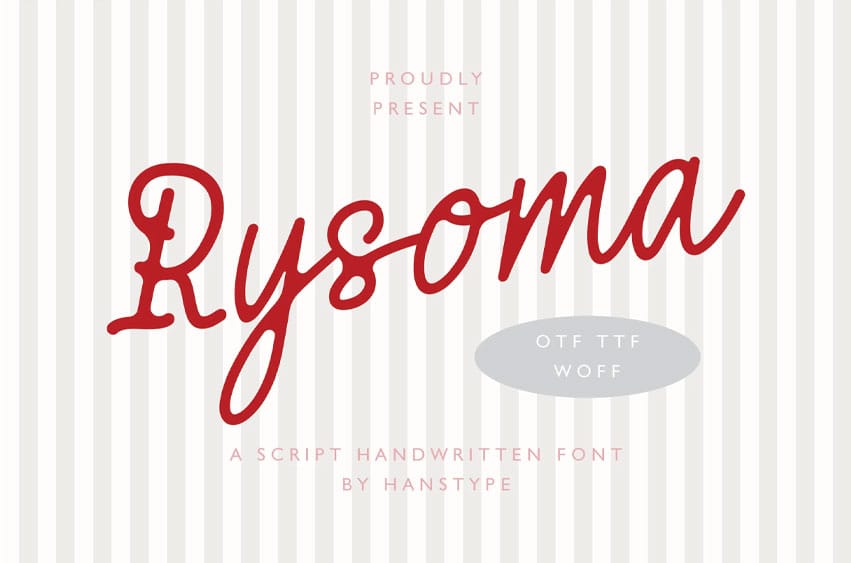
Rysoma Font is a playful, expressive font that captures the essence of joy and curiosity. With its bold, rounded letterforms and dynamic curves, it evokes a sense of fun and excitement, perfect for adding personality to any design.
Rysoma Font Preview